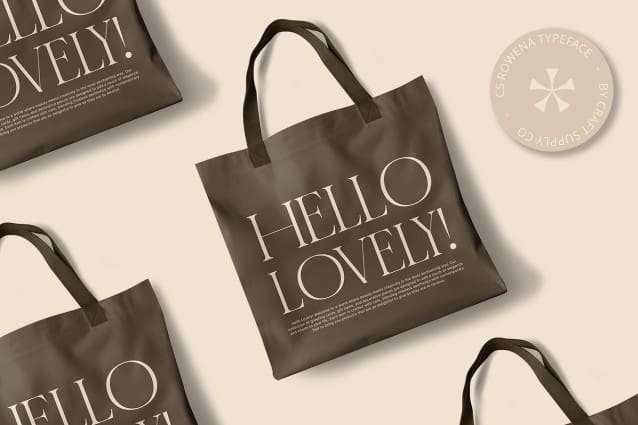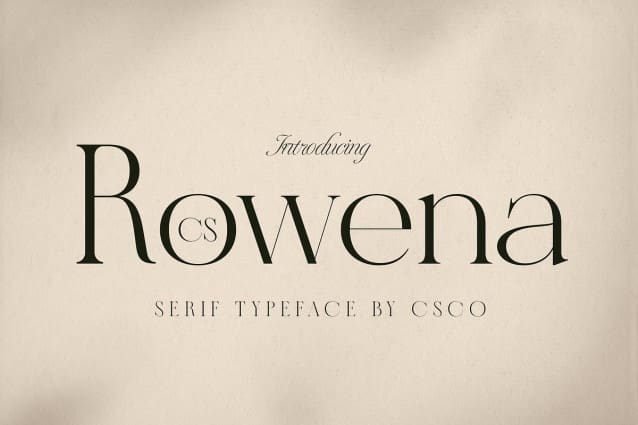
CS Rowena Font
CS Rowena Font is a refined serif font that embodies sophistication with its smooth and elegant lines. Ideal for projects requiring a luxurious and professional impression, this font excels in brand identities, promotional materials, editorial layouts, and book designs where typographic clarity and elegance are paramount.
The smooth and refined lines of CS Rowena make it perfect for enhancing an exclusive visual image. Whether used in brand identities, promotional materials, editorial layouts, or book designs, this font ensures a timeless and sophisticated appearance that resonates with professionalism.
With its modern serif design, CS Rowena offers versatility and elegance across various design applications. Its ability to convey a sense of luxury and refinement makes it a reliable choice for projects seeking to establish a classic and distinctive visual identity.
Choose CS Rowena to elevate your designs with its smooth serif lines and elegant appeal. This font guarantees to add a touch of sophistication and professionalism, ensuring your projects stand out with clarity and timeless elegance.